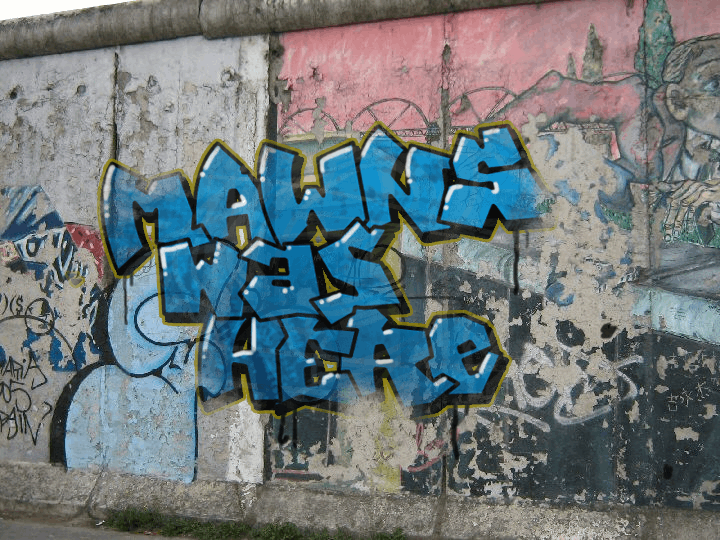
Free MAWNS\' Graffiti Filled Font
Download and enjoy this free mawns\' graffiti filled font. Cool typeface to showcase your designs in a modern way. This is a downloadable free typeface file brought to you by Font Space. This is absolutely cool font so you can easily make world-class designs.